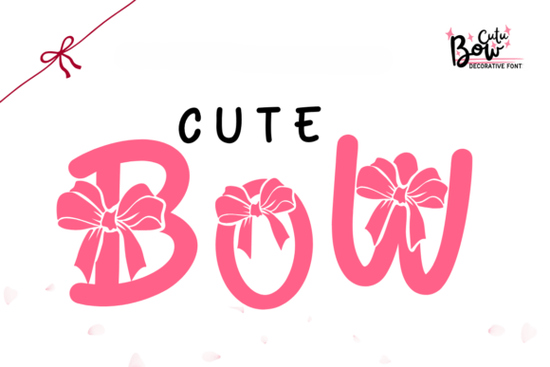
If you’re hunting for a typeface that feels like a smile in letterform, Cute Bow Font is a sweet place to start. This decorative font puts a tiny bow on top of bold, clean letters, turning an ordinary word into something that feels instantly friendly and handmade. Whether you’re designing birthday cards, product labels, or custom t-shirts, the bow detail adds a touch of whimsy without making the text hard to read.
Who is Cute Bow Font perfect for?
This font isn’t just for one type of creator. It works well for small business owners who sell handmade baby clothes or hair accessories and need a logo that matches the softness of their products. Print-on-demand sellers can use it on mugs, onesies, or tote bags because the bold shapes stay crisp even at smaller sizes. Crafters who make party decorations, stickers, or scrapbook pages will also appreciate how the bows create a built-in embellishment. Even digital planners and social media graphics get a little lift when you swap a plain header for this bow-adorned style.
If your audience loves things that are cute, cozy, or just a little bit playful, you’ll find this font slots into your branding surprisingly easily. It reads well at a glance, so it won’t frustrate people scanning a product listing or a mobile screen.
What makes the bow detail so useful?
Most decorative fonts sacrifice legibility for flair. Cute Bow Font keeps the letter skeletons simple and strong, then adds the bow as a consistent accent. The result is a font that feels decorated, not cluttered. The bows sit above the letters, so they don’t interfere with the baseline or spacing. This makes it a practical choice for longer words like “sweetheart” or “princess” without the risk of letters tripping over each other.
You can use it in all caps for a bolder, more balanced look, or mix cases to keep the bows floating at different heights. The bold weight also means you can pair it with a thinner script or a clean sans-serif and the design still feels cohesive. If you’ve struggled to find a girly font that actually works in a professional product mockup, this one bridges that gap.
How does it compare to other decorative fonts?
Can I use it for sublimation and Cricut projects?
Yes, and that’s where it really shines. The bold outlines cut cleanly on vinyl and are easy to weed, even with intricate bow shapes. Sublimation crafters love it for baby blankets, pillows, and t-shirts because the solid letterforms transfer with even color and no faded thin spots. Cricut users can layer the font with iron‑on vinyl or combine it with bow SVGs to double down on the theme.
What kinds of projects benefit most from this font?
Here are a few real‑world ideas where the bow motif does heavy lifting:
- Party supplies: cupcake toppers, favor tags, and banners for baby showers or birthdays.
- Product packaging: logo labels for handmade soaps, candles, or hair bows.
- Apparel: fun sayings on crewnecks, onesies, or tote bags.
- Stationery: notecards, thank‑you stickers, and envelope seals.
- Digital content: Pinterest pins, Instagram quote posts, or digital sticker sheets.
The consistency of the bow placement means you can use the font across a full product line and everything will look intentionally coordinated. A collection of labels, thank‑you cards, and packaging all using the same bow font gives your small business a polished, boutique feel without hiring a custom lettering artist.
A quick glance at the license is always smart, especially if you plan to use the font on products you sell. Creative Fabrica’s standard license covers many commercial uses, but if you’re selling thousands of physical items or want to use the font as a main logo for a large brand, check for any extended license needs. The font is designed for fun, cute projects, so it’s not meant for long paragraphs of body text. Save it for headlines, titles, and short quotes where it can be the star.
Whenever you need a typeface that feels hand-decorated but stays clean and readable, this little bow accent delivers exactly that charm.